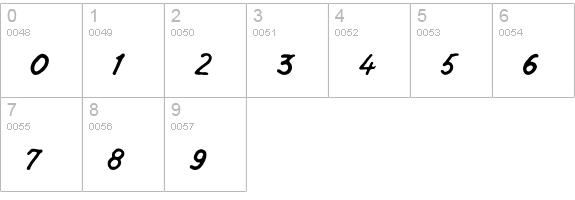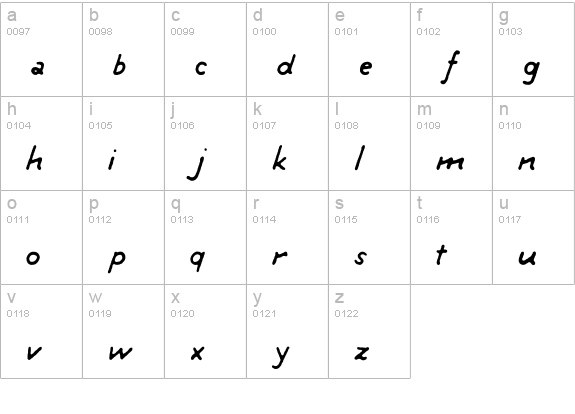
tintin Font Details
Tintin Font is a captivating and versatile typeface that blends modernity with a touch of nostalgia. Its sleek and clean lines combined with its elegant curves make it a perfect choice for a wide variety of design projects. Whether you are creating a logo, a website, or a poster, Tintin Font will effortlessly elevate your work to the next level. This font exudes a sense of adventure and curiosity, reminiscent of the beloved Tintin comics. It captures the essence of exploration and discovery, making it an excellent choice for projects related to travel, literature, or even children's themes. The Tintin Font is not only visually appealing but also highly legible, ensuring that your message is conveyed clearly to your audience. Its carefully crafted letterforms and balanced spacing make it a joy to read, whether in small paragraphs or large headlines. And the best part? Tintin Font is available for free! You can easily download it from FontsMarket.com, a reputable source for high-quality fonts. This means that you can bring the enchanting world of Tintin into your designs without breaking the bank. So why wait? Download Tintin Font today and embark on a creative journey that will captivate your audience and leave a lasting impression. Let your imagination run wild with this remarkable typeface that combines timeless charm with modern sensibilities.